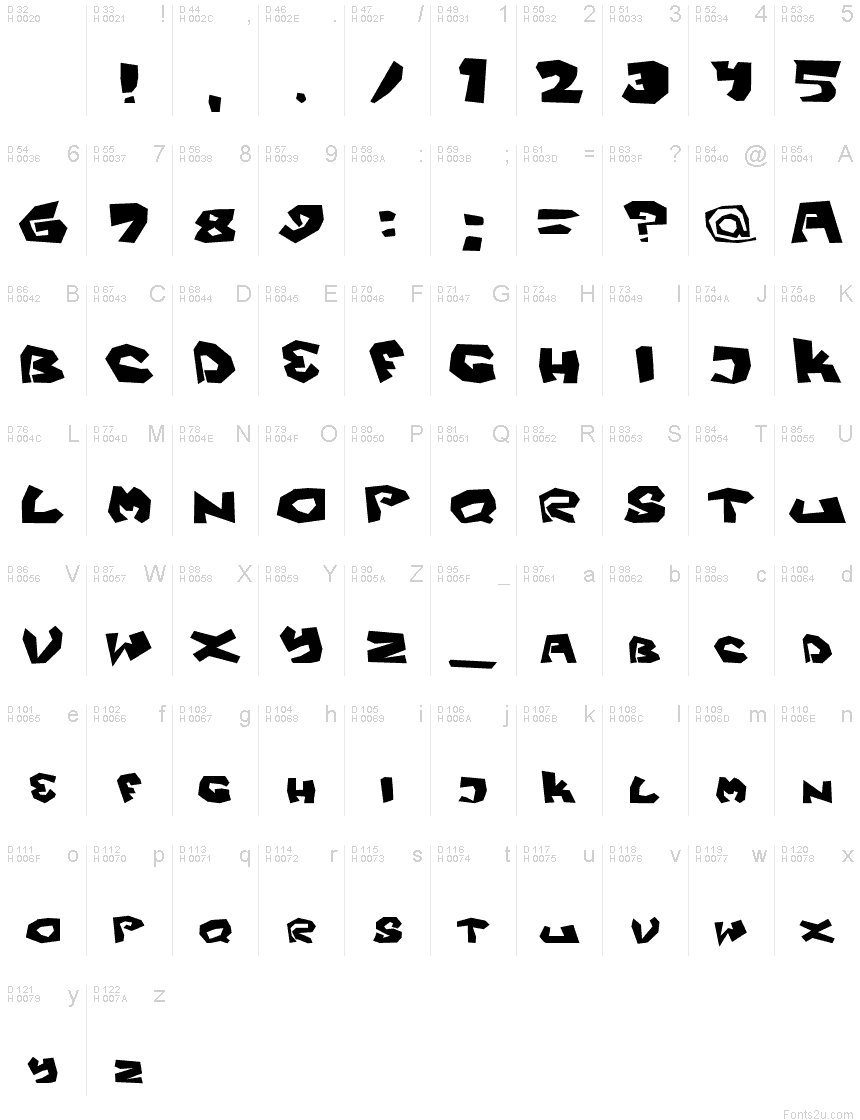
Fittsvamp
Fittsvamp font by Tarmsaft Font Factory is a free distorted display typeface with a jagged, cut-out energy that feels straight off a DIY poster wall. Each letter looks hacked from black cardboard with blunt scissors—chunky, uneven, and a little unhinged—so text comes out loud, raw, and impossible to ignore. The spacing stays tight and punchy, giving headlines a compact, brick-like weight that hits hard even in a single word.
Using Fittsvamp on gig posters, underground party flyers, zines, album covers, skate or streetwear branding, and horror titles instantly pulls you into a rough-edged, alternative world. This free font works best big and bold, where its sharp angles and broken silhouettes can really shout. For body text, pair it with a clean neo-grotesque sans and let Fittsvamp handle only the loud parts—titles, logos, and short, impactful phrases.